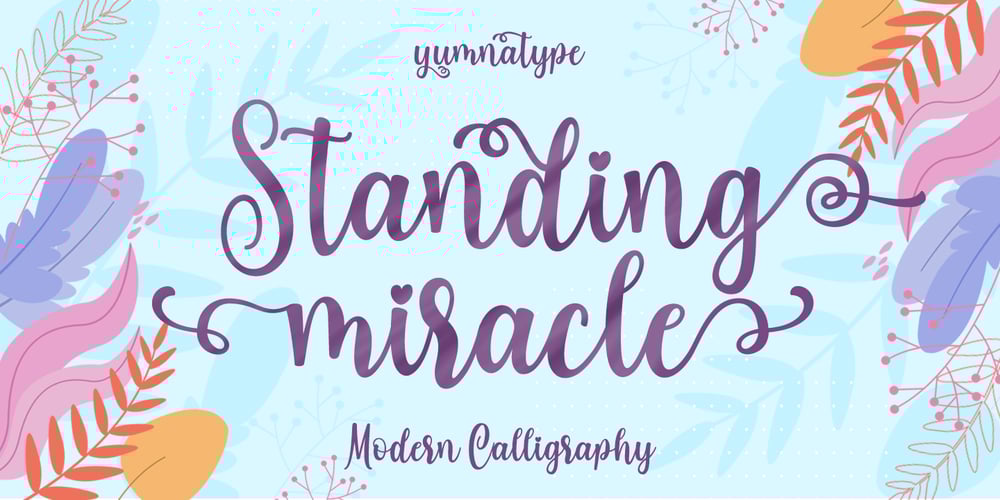
Standing Miracle
Standing Miracle font
Standing Miracle Font Family was designed by Ditya Dewi Anandita and published by Yumna Type. Standing Miracle contains 1 styles and family package options. Standing Miracle is a beautiful script font with a natural and unique design will make your project more beautiful and powerful. The font is suitable for your branding project and any design.Features: Multilingual Support PUA encoded 11 Alternates 6 Ligatures 52 Swashes Design by Yumnatype